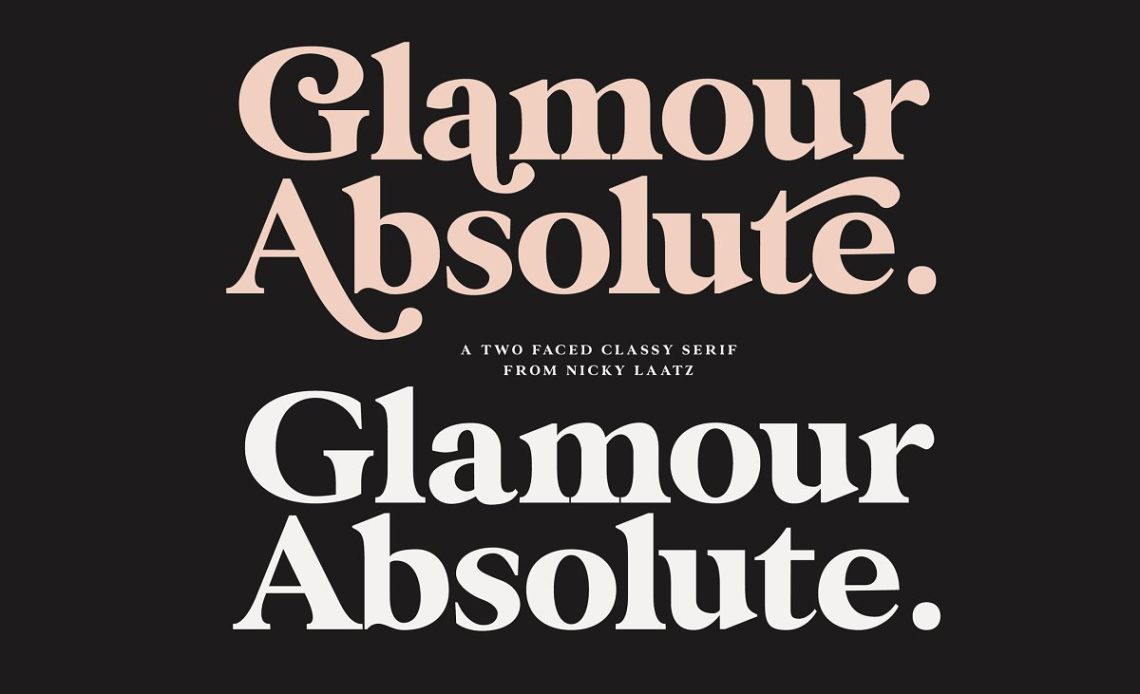
Introducing Glamour Absolute - the perfect blend of modern and vintage curves that offer a two-faced beauty in one font. Created by Nicky Laatz, Glamour Absolute is a bold serif that is both versatile and stylish.
For those who prefer the vintage retro look, this font provides you with a vast selection of alternate letters and ligatures, allowing you to vary between a light and heavy vintage look. On the other hand, for those seeking a modern chic look, simply type with regular letters, and play with your letter spacing to add even more class to your designs.
Glamour Absolute is the ultimate versatile font that can be used for any project type, including bold magazine imagery, wedding invitations, branding, poster design, and so much more. Plus, included in this pack is a free Photoshop template with subtle noise texture (at various strengths to suit your design) used in these previews.